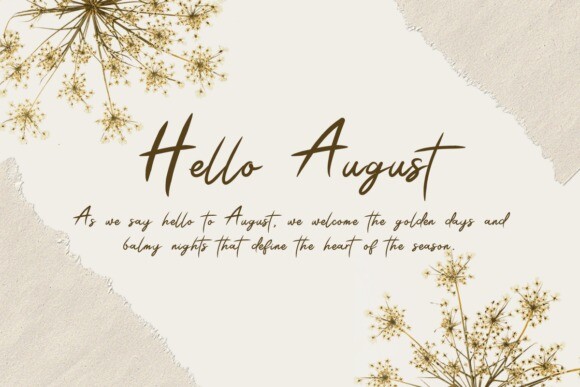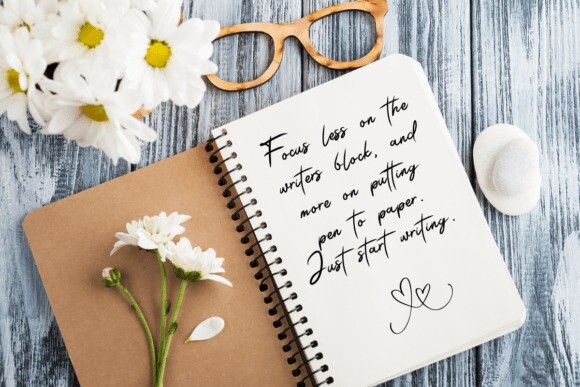
The Signature Script Font
The Signature Script Font is a handwritten Script font, perfect for digital note-taking. Its versatility makes it ideal for various projects such as Procreate designs, blog posts, logos, branding, digital planners, invitations, greeting cards, photo albums, and much more.